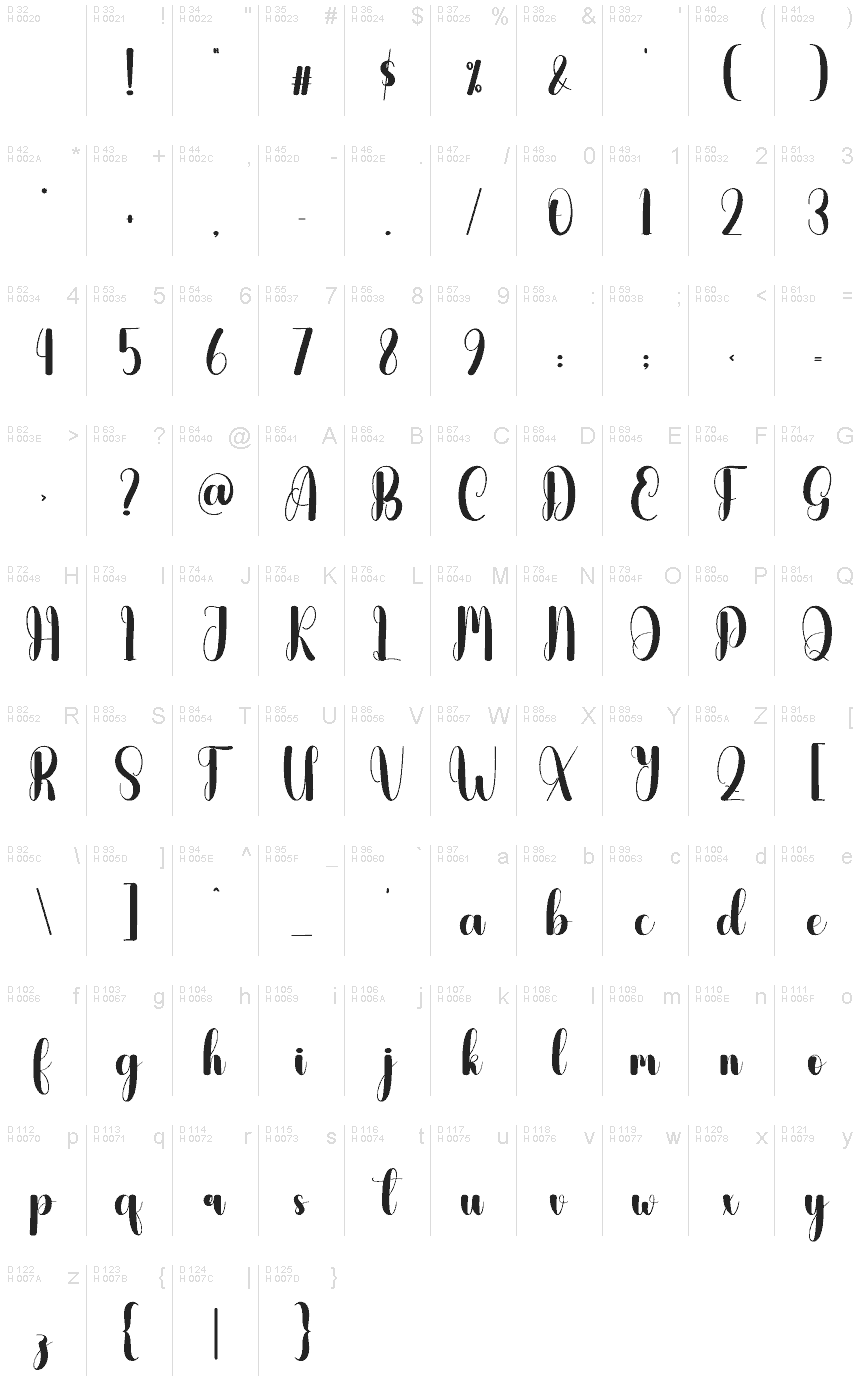
Guest font by Andi Moz is an elegant calligraphy font defined by expressive lines, stylish curvatures, and contemporary elegance. It displays a great level of sophistication and gives its letters a sophisticated minimalist look that will simply distinguish your designs.
Free for everyone, Guest can be employed in logos, titles of articles, branding projects, food package design, invitations for events (especially weddings), t-shirt designs …